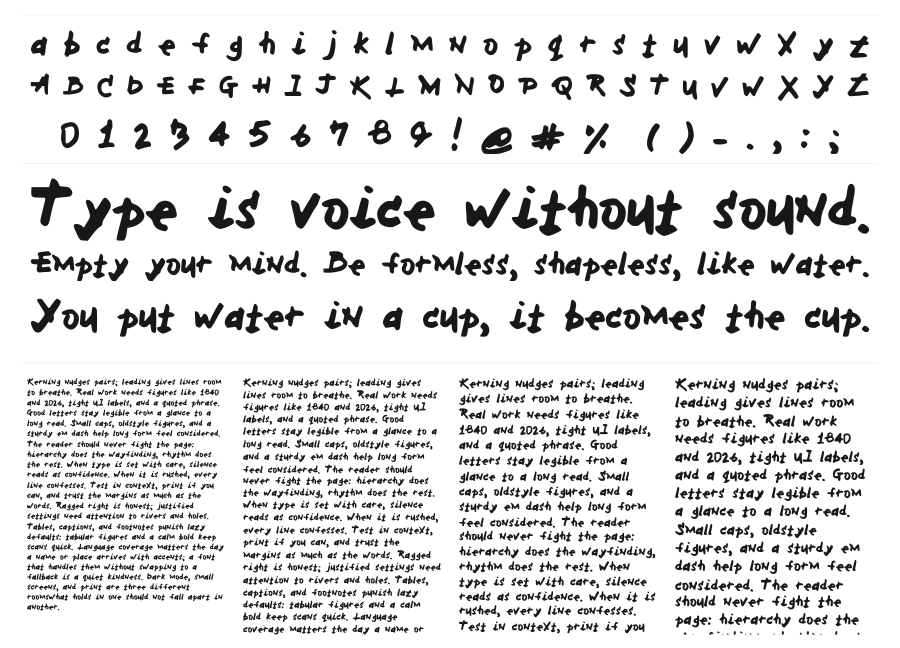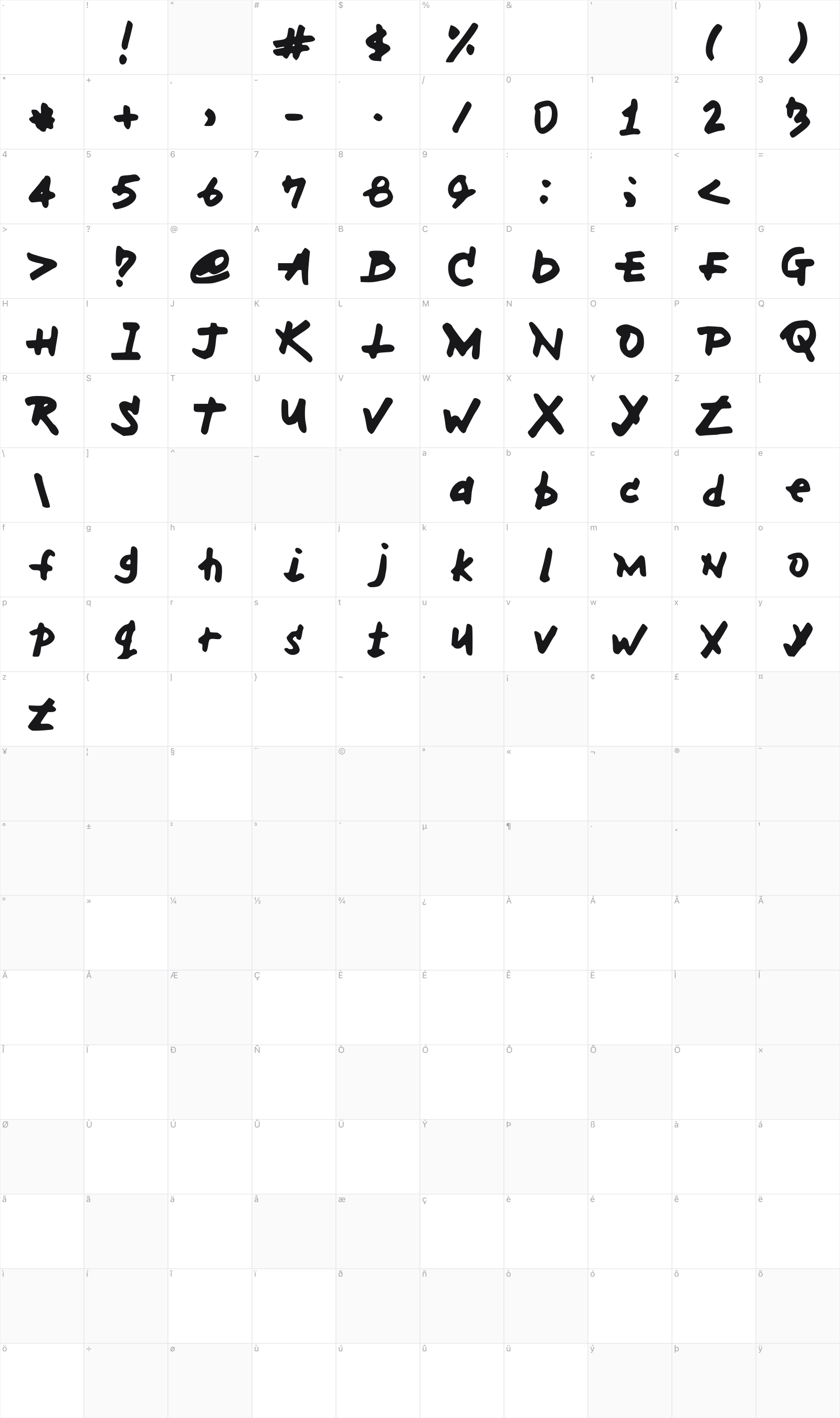
MH Font
MH Font is a thick, casual handwritten face by M H that captures the uneven pressure and energy of a broad-tip marker. The letterforms are bold and slightly quirky, with enough personality to feel authentic rather than designed. Best for headlines, packaging, and short text where you want something informal with real visual weight.